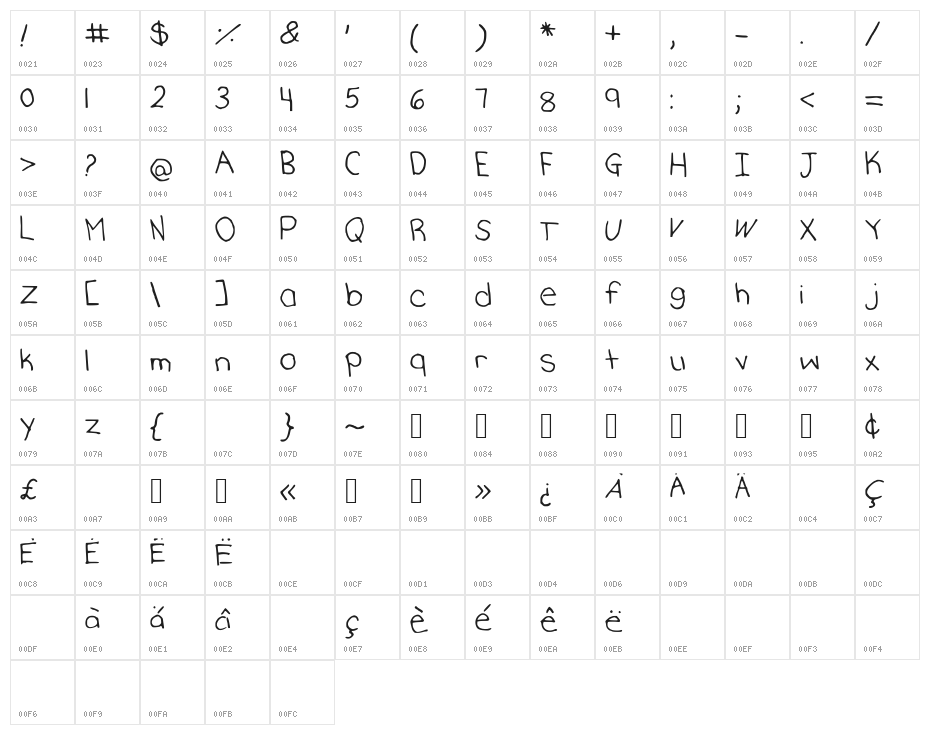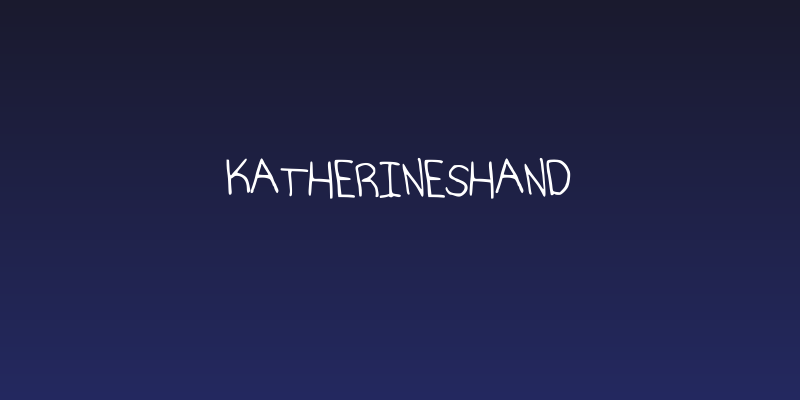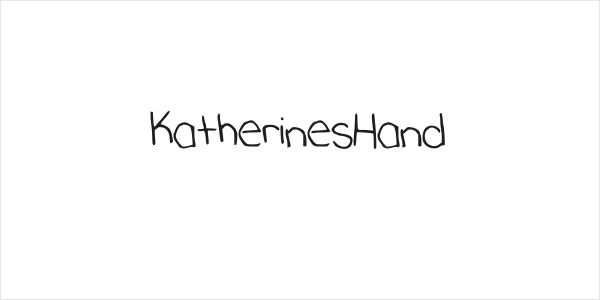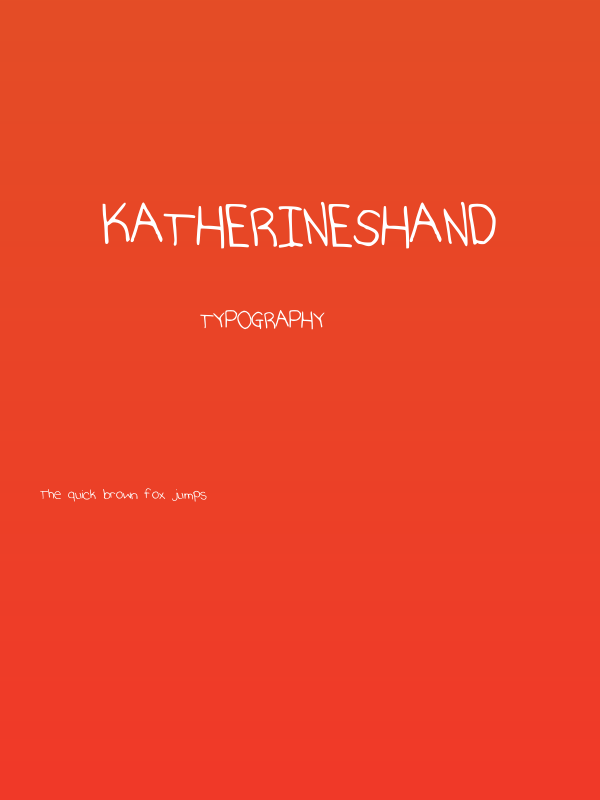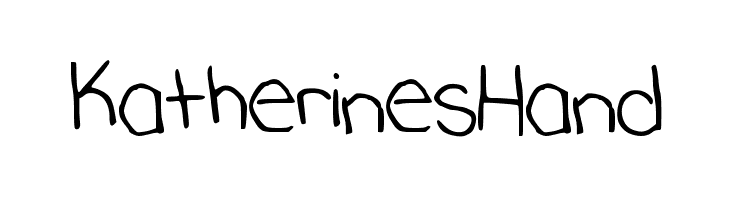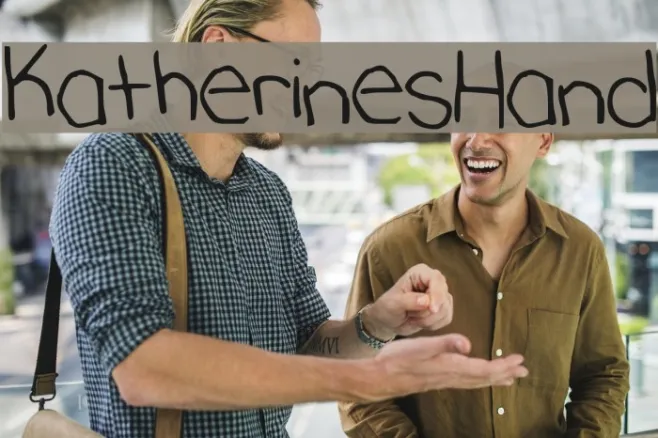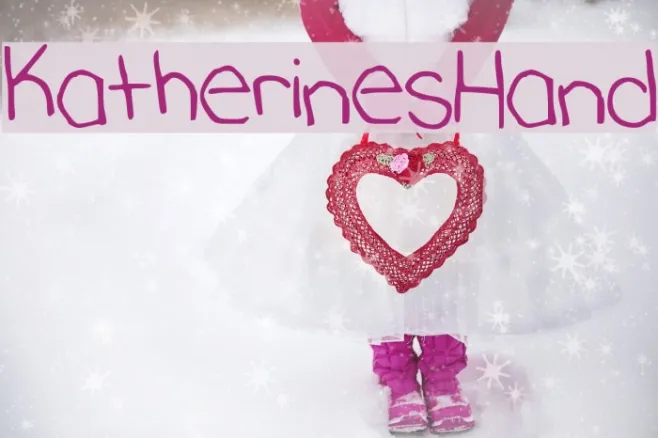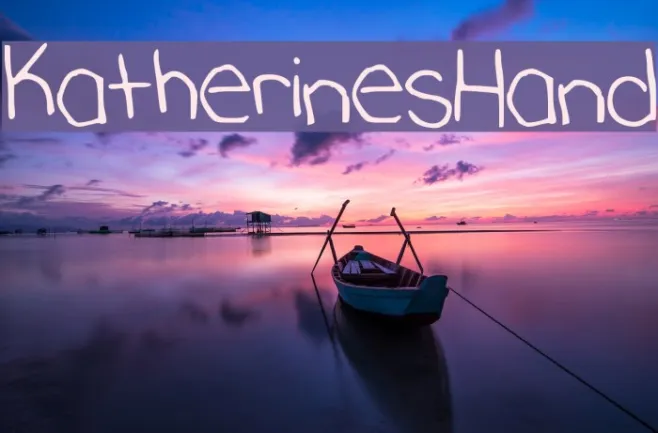
KatherinesHand Font
KatherinesHand Description
This font exudes a playful and informal vibe, characterized by its handwritten style. The letters are unevenly shaped, giving it an authentic, personal touch. The strokes are consistent in thickness, providing a uniform appearance despite the casual style. The characters are slightly rounded, enhancing the friendly and approachable feel. The numbers and special characters maintain the same whimsical style, ensuring cohesion across all elements. This font is perfect for projects that require a human touch, such as personal invitations, greeting cards, or creative branding.
| Proposed Projects | Ideal for personal invitations, greeting cards, children's books, and creative branding. |